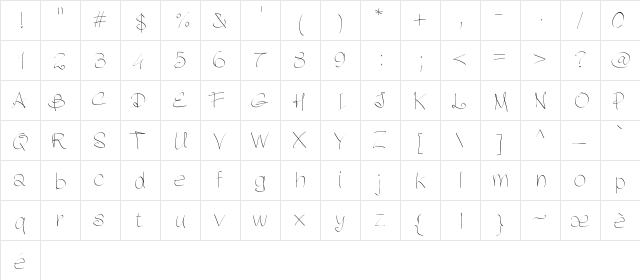
PWFluidhand Medium
Design Context for PWFluidhand Typeface
PWFluidhand brings a calligraphic fluidity to the page — its connecting strokes and expressive curves give it an unmistakably human quality.
Font Pairing: Combine PWFluidhand with a simple geometric sans for maximum contrast — the tension between flowing curves and clean structure is a classic typographic pairing.
Pro Tip: Pair PWFluidhand with a clean sans-serif for supporting text. The contrast between fluid script and geometric structure creates an elegant typographic hierarchy.